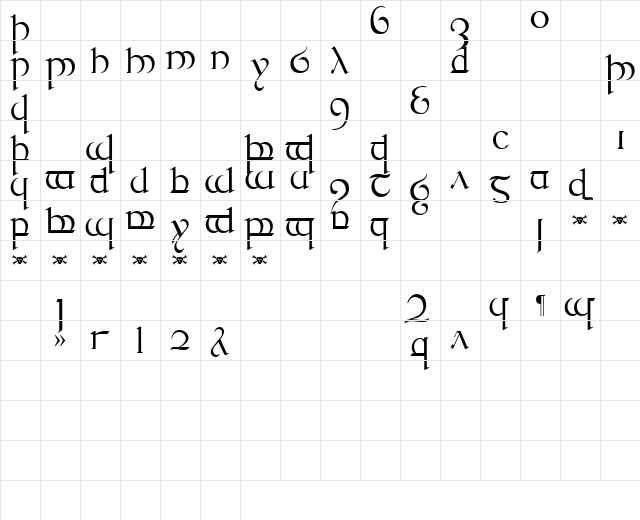
Tengwar Quenya-1 Regular
Design Context for Tengwar Quenya-1 Typeface
Tengwar Quenya-1 is a composed and adaptable typeface that performs quietly and consistently across a wide range of design contexts.